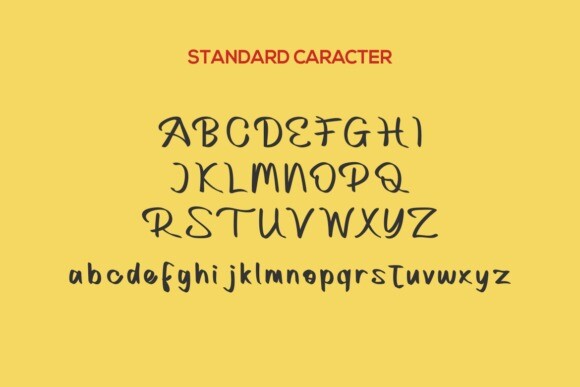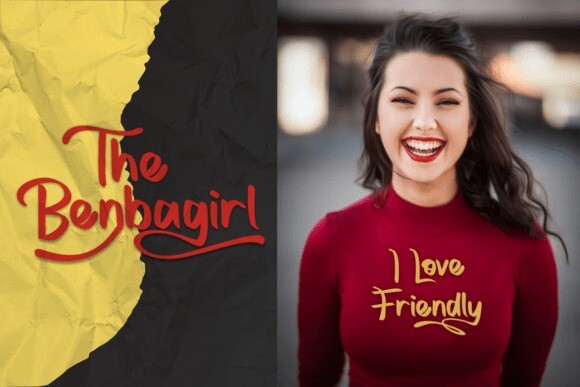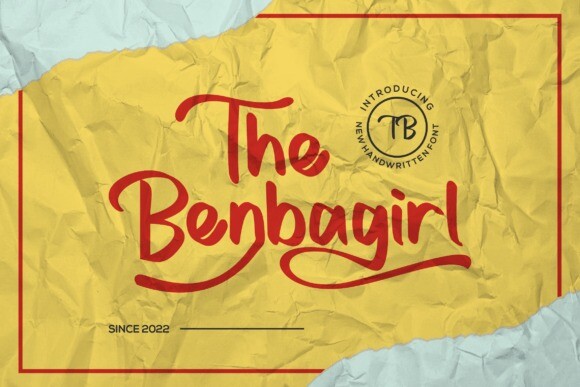
Thebenbagirl Font
TheBenbagirl Font is a bold and authentic display font. The font is suitable for any branding project like logo, t-shirt printing, esport, and many more. outstanding in a wide range of contexts.